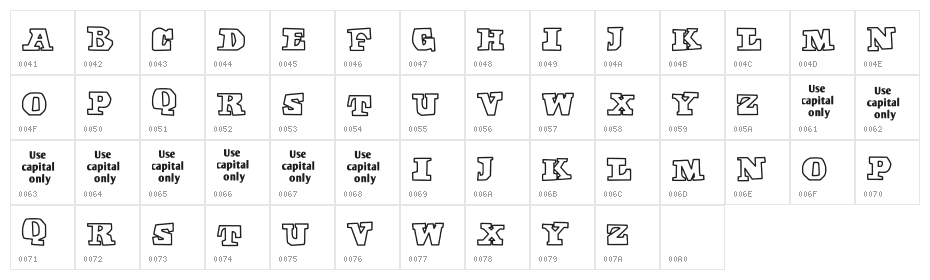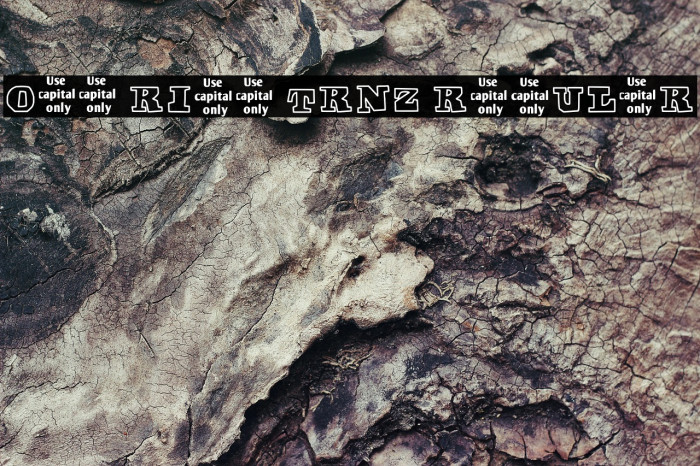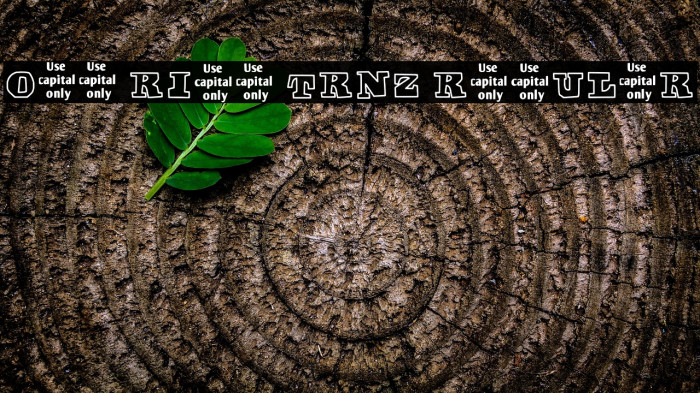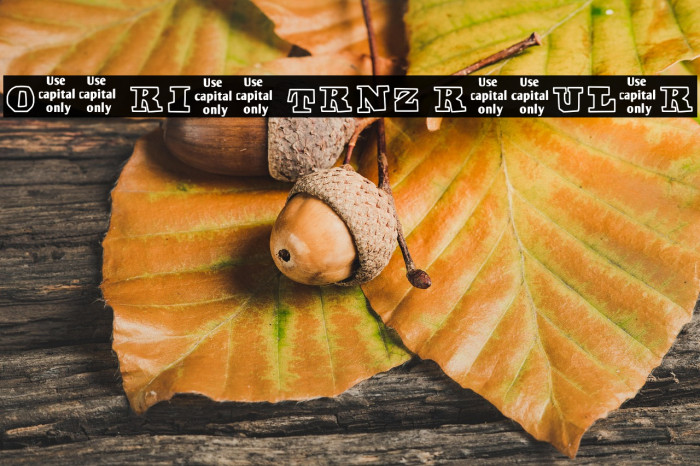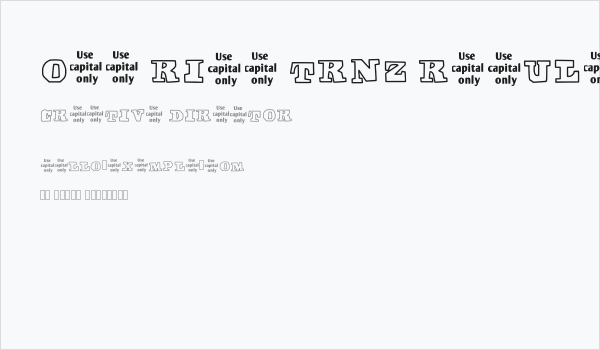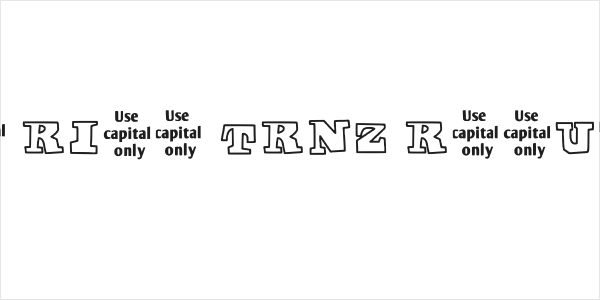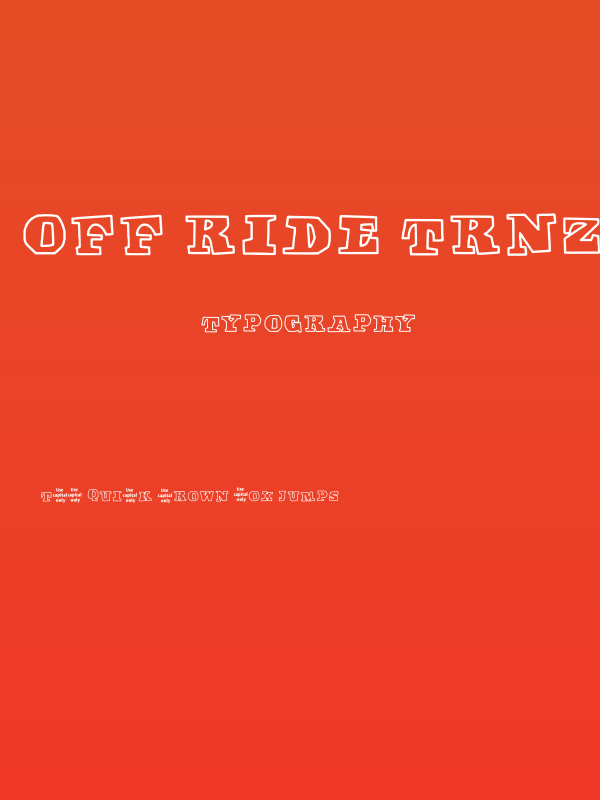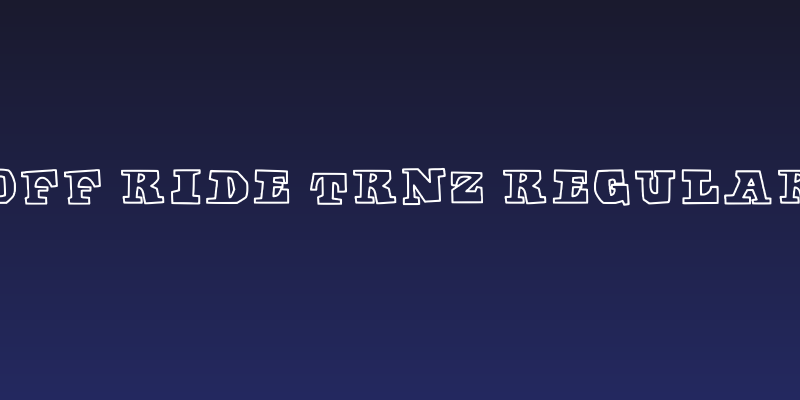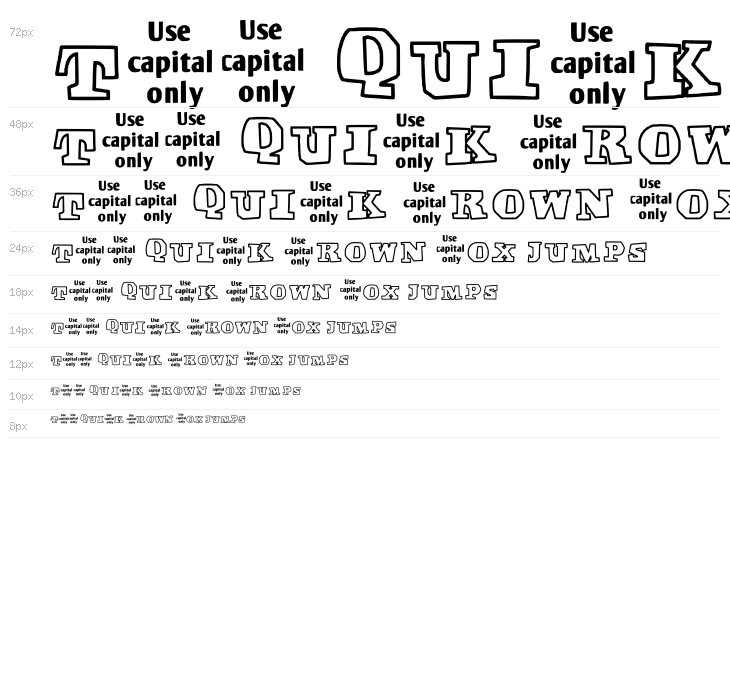
Off Ride Trnz Regular Font
Off Ride Trnz Regular Description
This font features a bold, outlined style with a playful and slightly irregular shape, giving it a hand-drawn appearance. The letters are all uppercase, with each character having a distinct, blocky form that is both eye-catching and legible. The outline adds a sense of depth and dimension, making it suitable for designs that require a strong visual impact. The font's quirky and informal style makes it ideal for creative projects, adding a touch of fun and personality. Its unique design is perfect for use in posters, headlines, and other display purposes where a bold statement is needed.
| Proposed Projects | Ideal for posters, headlines, logos, and creative designs requiring a bold, playful look. |